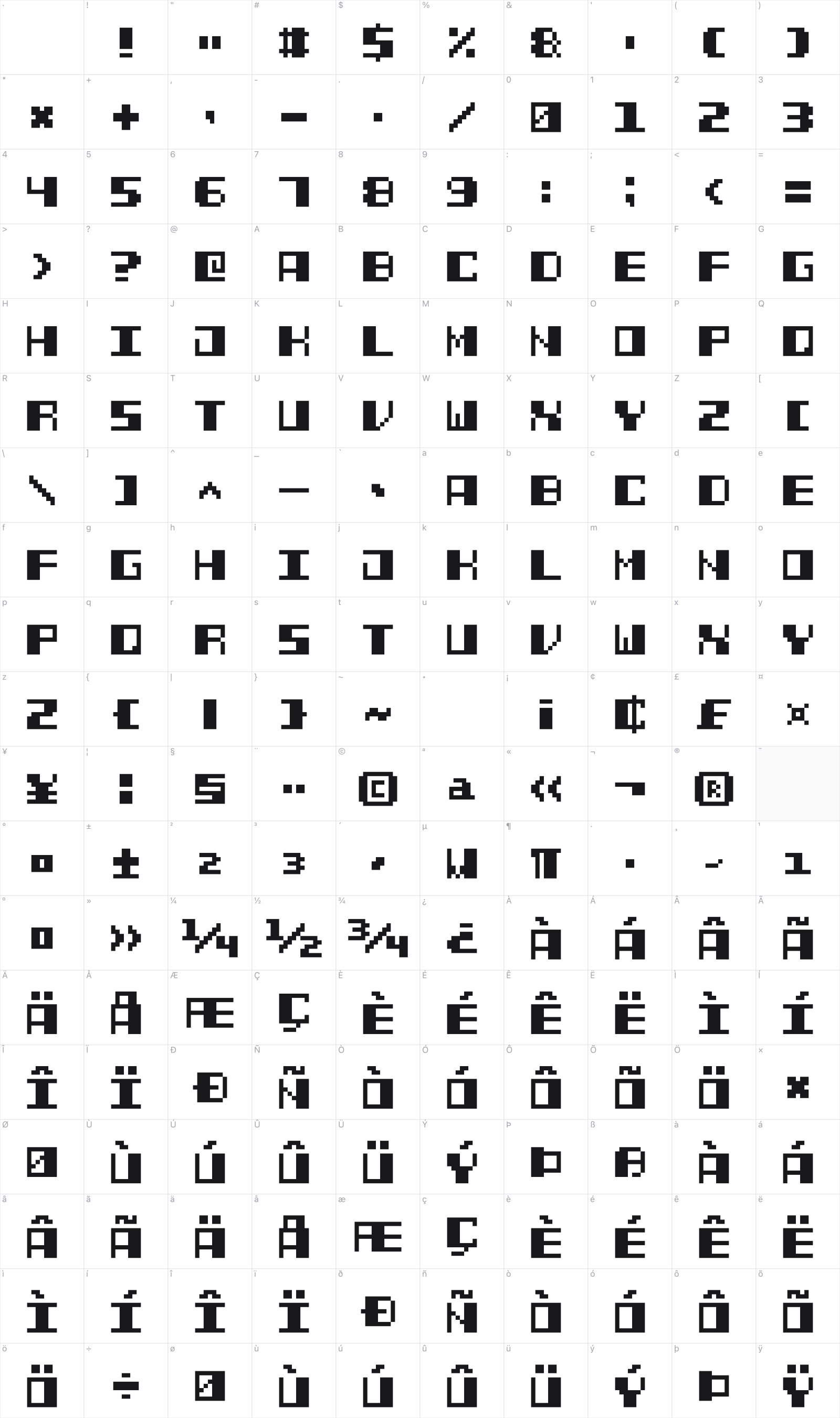
Power Pixel-7
Power Pixel-7 is a bold, blocky pixel font from Style-7 with uppercase letterforms that feel like they belong on a 16-bit title screen. The characters are chunky and high-contrast, built for headlines, game UIs, and retro-digital graphics where you want something that reads loud and clear. It leans into that classic arcade energy without trying to be anything else.